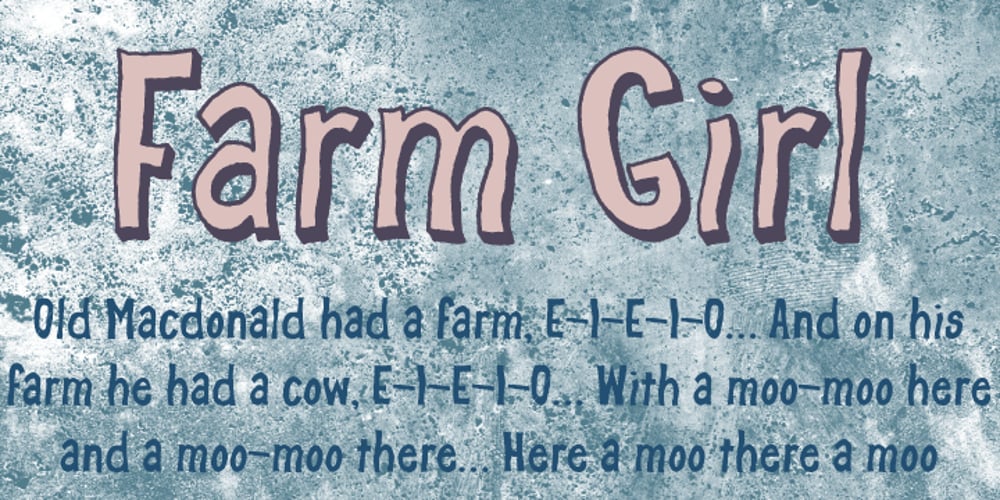
Farm Girl Font Family was designed by Dathan Boardman and published by Open Window. Farm Girl contains 3 styles and family package options. From the lab of Open Window comes Farm Girl. Farm Girl was inspired by old Art Nouveau posters from Toulouse Lautrec and others. Farm Girl utilizes the same ‘loosey-goosey’ quality as those posters. Farm Girl consists of 3 different styles which are designed to be used in combination with each other. Many different variations are possible. It’s fresh cut and contemporary. It’s ideal use is as a display font.